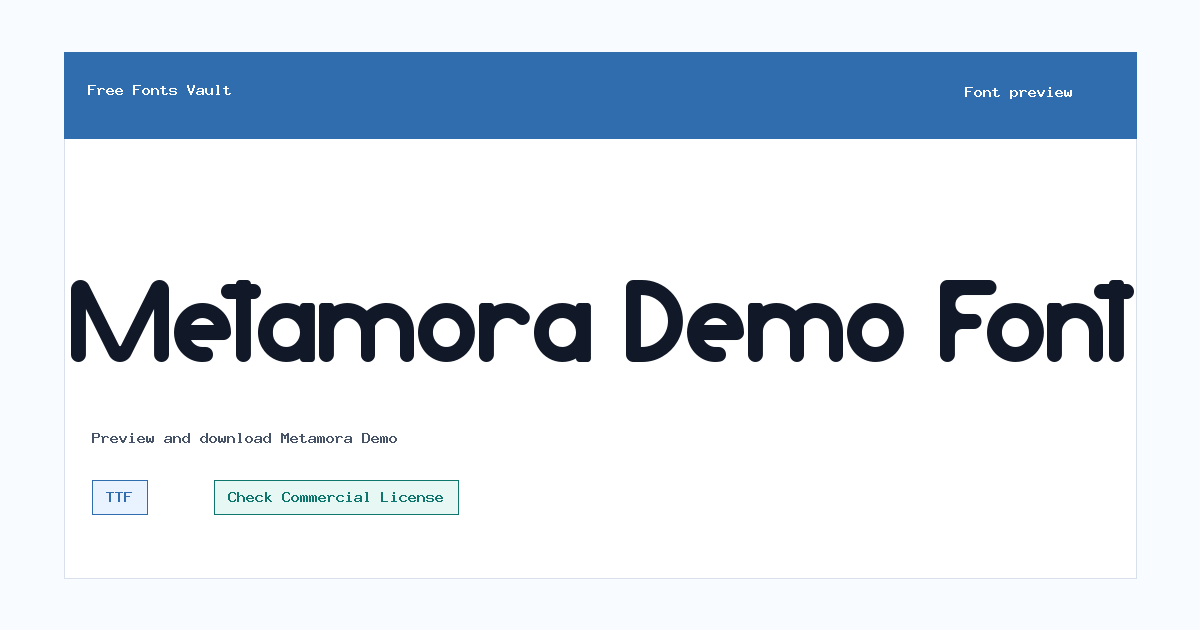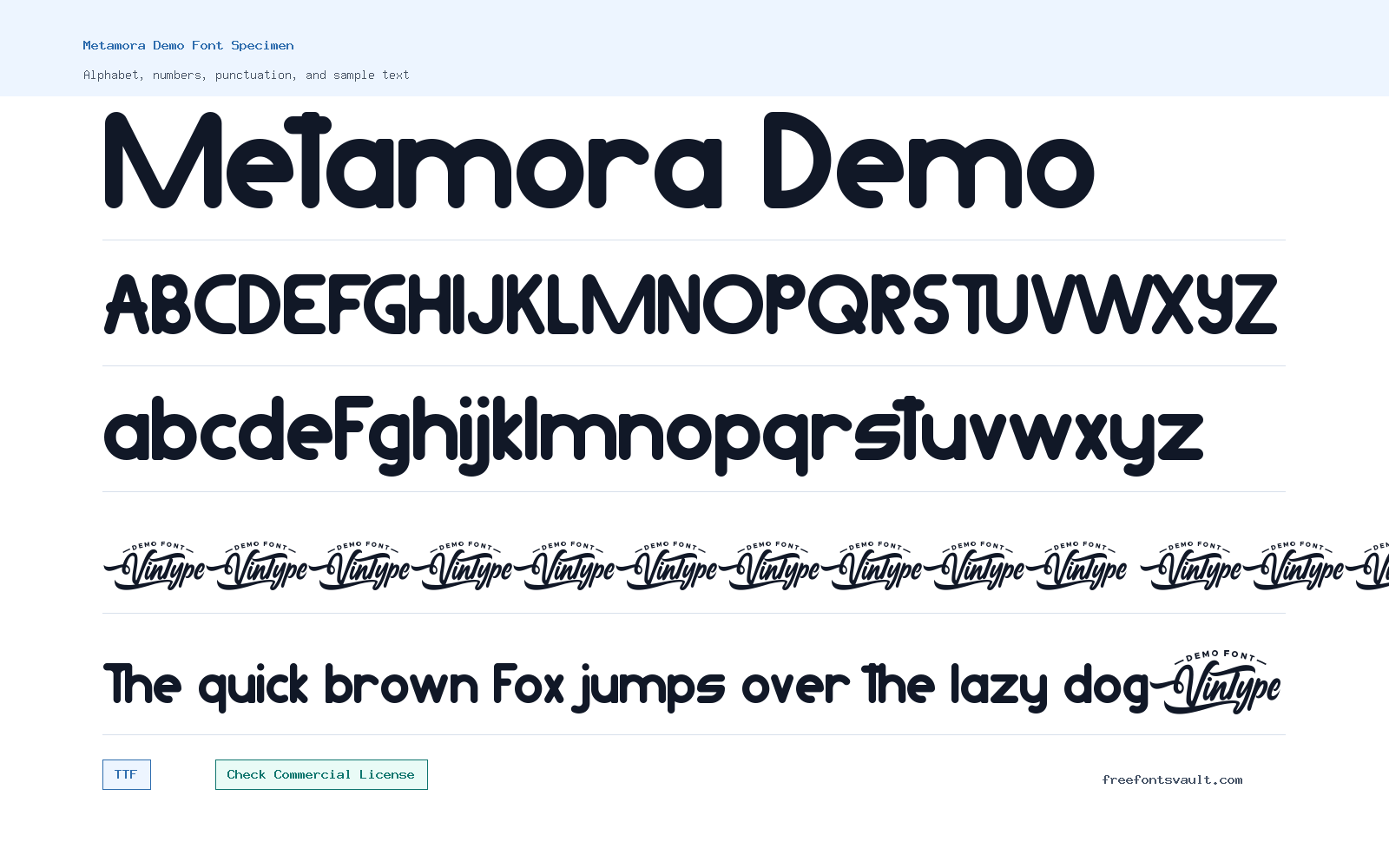
Metamora Demo
- Designer M. Lukman F & Sarah Suci P
- Foundry VinType Studio
Metamora Demo font.
Metamora Demo is a personal-use font family from VinType Studio with regular and italic TTF styles for previewing, testing, and non-commercial design practice.
About Metamora Demo Font
Metamora Demo comes in two core styles: a regular upright style and a matching italic style. That makes it easier to test simple layout contrast, such as using the regular style for names or headings and the italic style for emphasis, subtitles, or short accent text.
Also check the italic style separately rather than assuming it will behave like the upright file. Italic demo fonts can be useful for signatures, short captions, and emphasis, but they may not be ideal for every word. Keep the design personal unless a commercial license is confirmed by the seller or foundry.
- Regular and italic styles for basic text contrast
- Short display text, titles, name styling, and preview experiments
Metamora Demo is credited to M. Lukman F & Sarah Suci P, with VinType Studio listed as the foundry.
Does Metamora Demo include an italic style?
Yes. The family has a regular upright style and a regular-weight italic style.
Who designed Metamora Demo?
The font is credited to M. Lukman F & Sarah Suci P, with VinType Studio listed as the foundry.